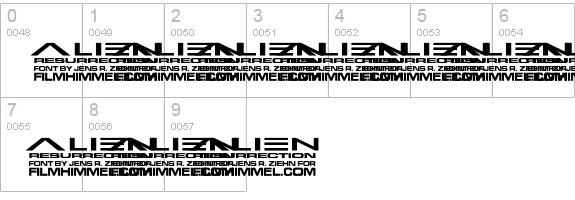
Alien Resurrection Font Details
Introducing Alien Resurrection, a mesmerizing and otherworldly font that will transport you to a realm beyond imagination. This font is a captivating fusion of boldness and elegance, exuding an aura of mystery and intrigue. Its unique design features intricate curves and sharp angles, reminiscent of the enigmatic symbols found in extraterrestrial languages. But what sets Alien Resurrection apart is its remarkable versatility. Whether you are creating a science fiction masterpiece, designing futuristic logos, or crafting captivating headlines, this font will effortlessly elevate your projects to unprecedented levels of visual excellence. And the best part? Alien Resurrection is freely available to download at FontsMarket.com. This means that you can unleash your creativity without any limitations, adding a touch of extraterrestrial allure to your designs without breaking the bank. Don't miss out on this rare opportunity to access a font that will make your projects truly out-of-this-world. With Alien Resurrection, you will be able to captivate your audience, leaving them in awe of your artistic vision and your ability to transport them to distant galaxies. So, take a leap into the unknown and experience the wonders of Alien Resurrection. Let your creativity soar and watch as your designs transcend the boundaries of the ordinary. Get your hands on this extraordinary font today, and let the extraterrestrial journey begin.